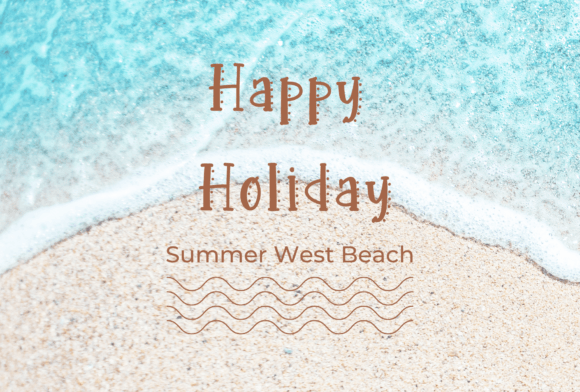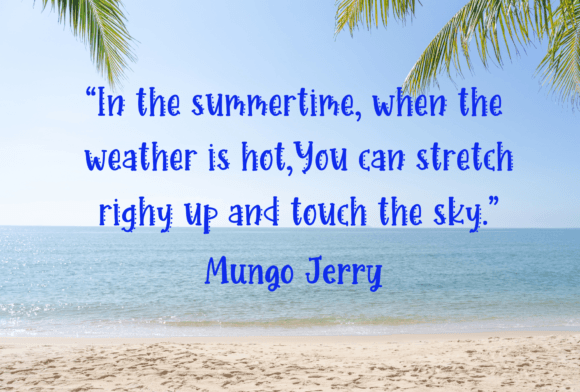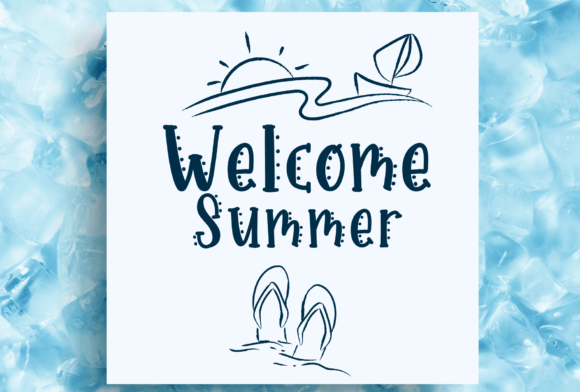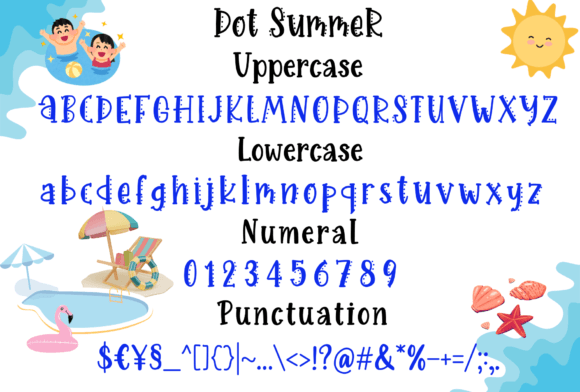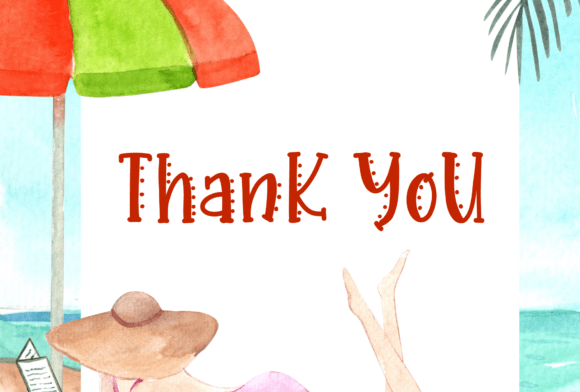
Bring a Pop of Whimsy to Your Creations
Have you ever been browsing through a craft store and stumbled upon the perfect font to match your latest project? For many designers, that moment is like finding a treasure trove of inspiration. It’s the spark that sets their imagination ablaze, and they can’t wait to see their creation come to life. For those who crave a playful touch, there’s one font that stands out from the rest: the Dot Summer Font.
This charming font is more than just a pretty face – it’s a game-changer for designers looking to add a unique twist to their work. With its distinctive dots and cute, quirky vibe, the Dot Summer Font is perfect for breathing life into special occasions like birthdays, anniversaries, and holidays. Whether you’re designing a card, a product, or a piece of wall art, this font is sure to make it stand out.
Key Features of Dot Summer Font
- Unique Characteristics: This font features a unique blend of modern and vintage elements, with intricate details and subtle texture, giving it a distinctive and eye-catching appearance.
- Legibility: The font is designed to be highly legible, with clear letterforms and generous spacing, making it easy to read in a variety of contexts.
- Language Support: The Dot Summer Font supports a wide range of languages, including Latin, Cyrillic, and Greek, making it a versatile choice for global applications.
Review of Dot Summer Font
Overall, I think Dot Summer Font is a visually appealing and fun font that could be a great addition to any design project. ✨ The rounded edges and soft lines give it a friendly and approachable feel, making it perfect for branding and advertising campaigns.
Here are some things that work well with this font:
- ✨ The bold weights are great for making headlines stand out, and the regular weights are perfect for body text.
- ✨ The font is highly legible, even at small sizes, making it great for digital displays and print materials.
- ✨ The font’s versatility makes it suitable for a wide range of industries and designs, from modern and sleek to playful and whimsical.
- ⚠️ The font’s rounded edges can make it feel a bit too playful or childish for certain designs or audiences.
- ⚠️ The font may not be the best choice for designs that require a lot of technical or formal typography, such as academic or financial materials.
- ⚠️ The font’s lack of italic and oblique styles may limit its use in certain design situations.
Overall, I would give Dot Summer Font 4 out of 5 stars. While it has some limitations, its unique personality and versatility make it a great choice for designers looking for a fun and engaging font.
Tips for Getting the Most Out of Dot Summer Font
Use Dot Summer Font for creative projects that require a playful and modern touch. It’s perfect for branding, advertising, and social media graphics. Experiment with different font sizes, colors, and styles to create visually appealing designs.
Dot Summer Font is ideal for:
- Social media graphics and posts